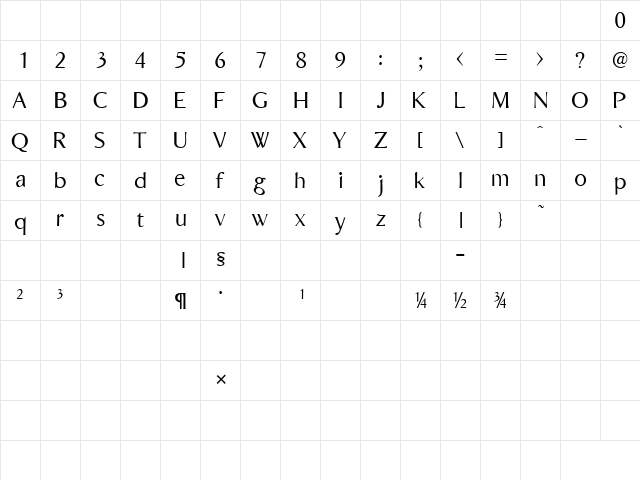
Bordini (Unregistered) Regular Font Preview
Bordini (Unregistered) Regular
Bordini (Unregistered) Regular Font Details
Design Context for Bordini (Unregistered) Typeface
Bordini (Unregistered) offers clean, dependable letterforms without strong stylistic allegiance, making it a practical choice for designers who need flexibility.